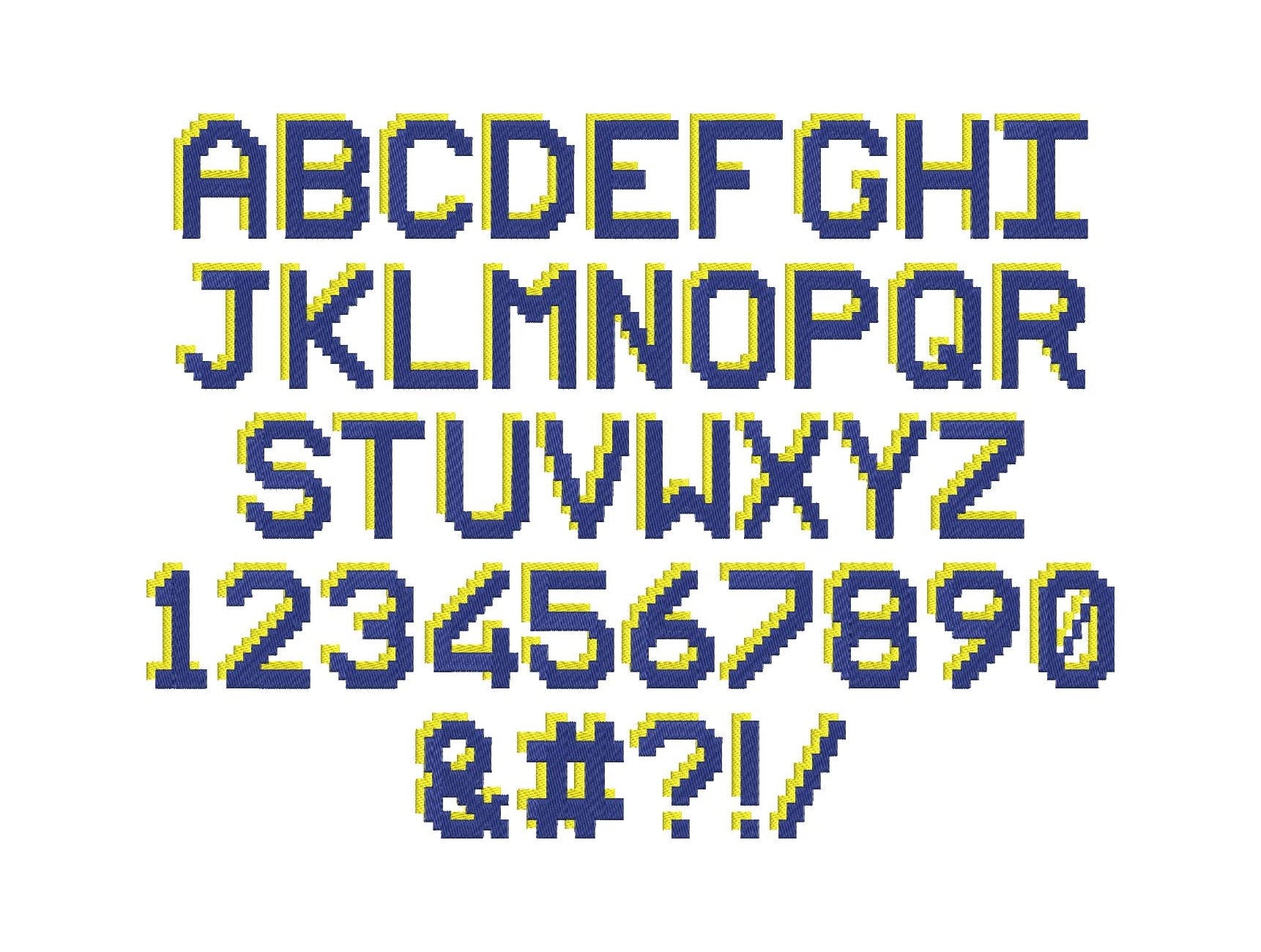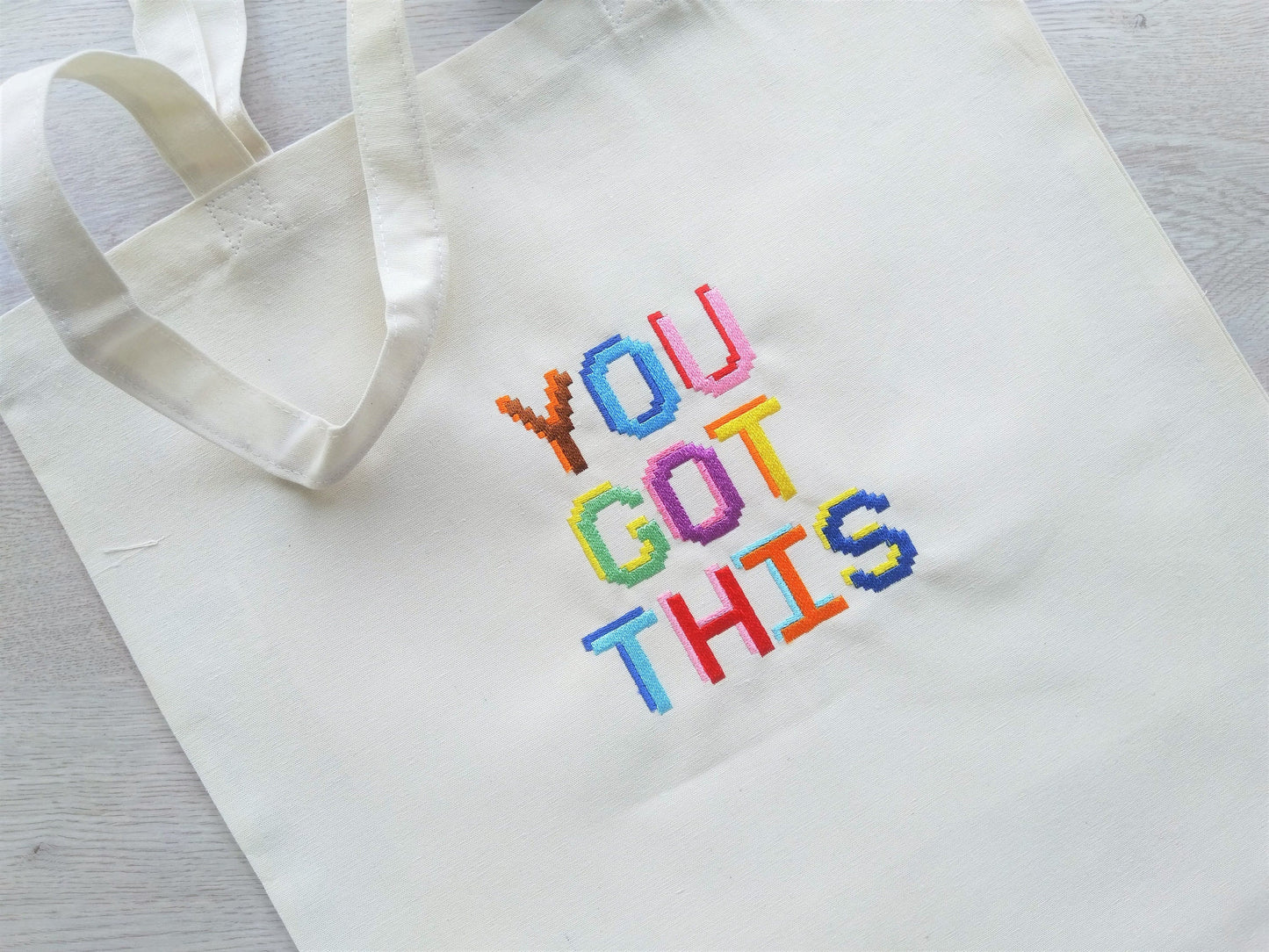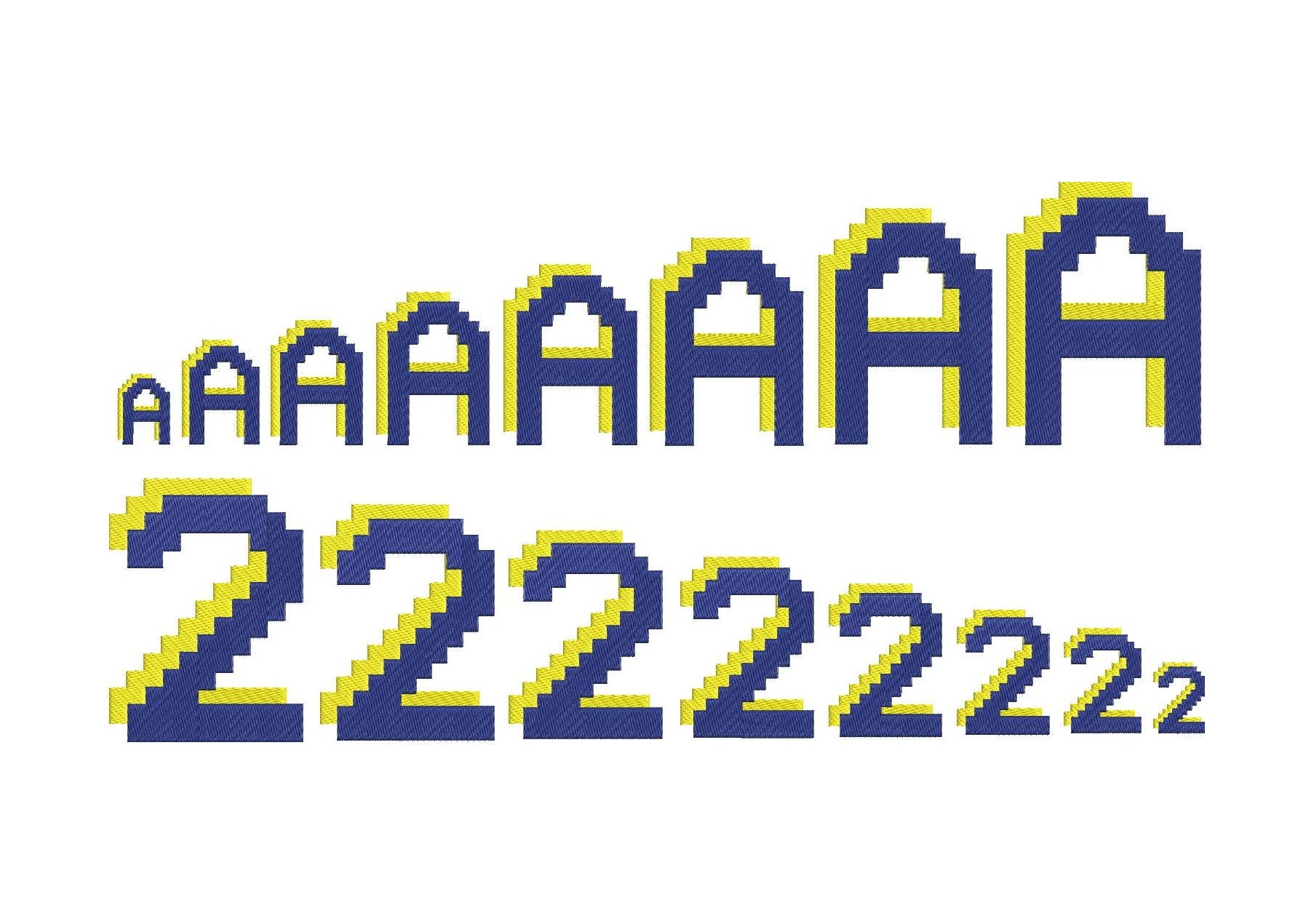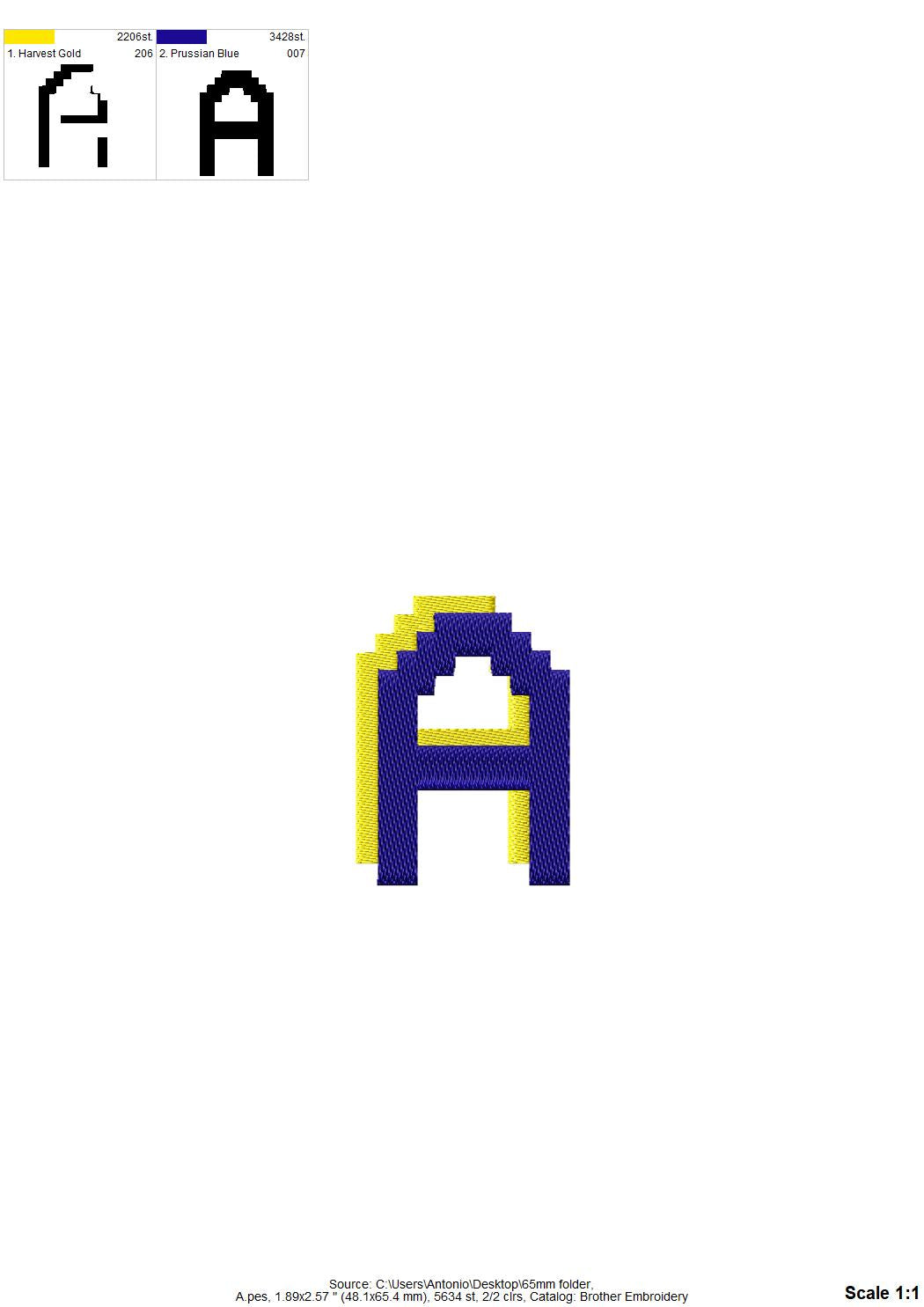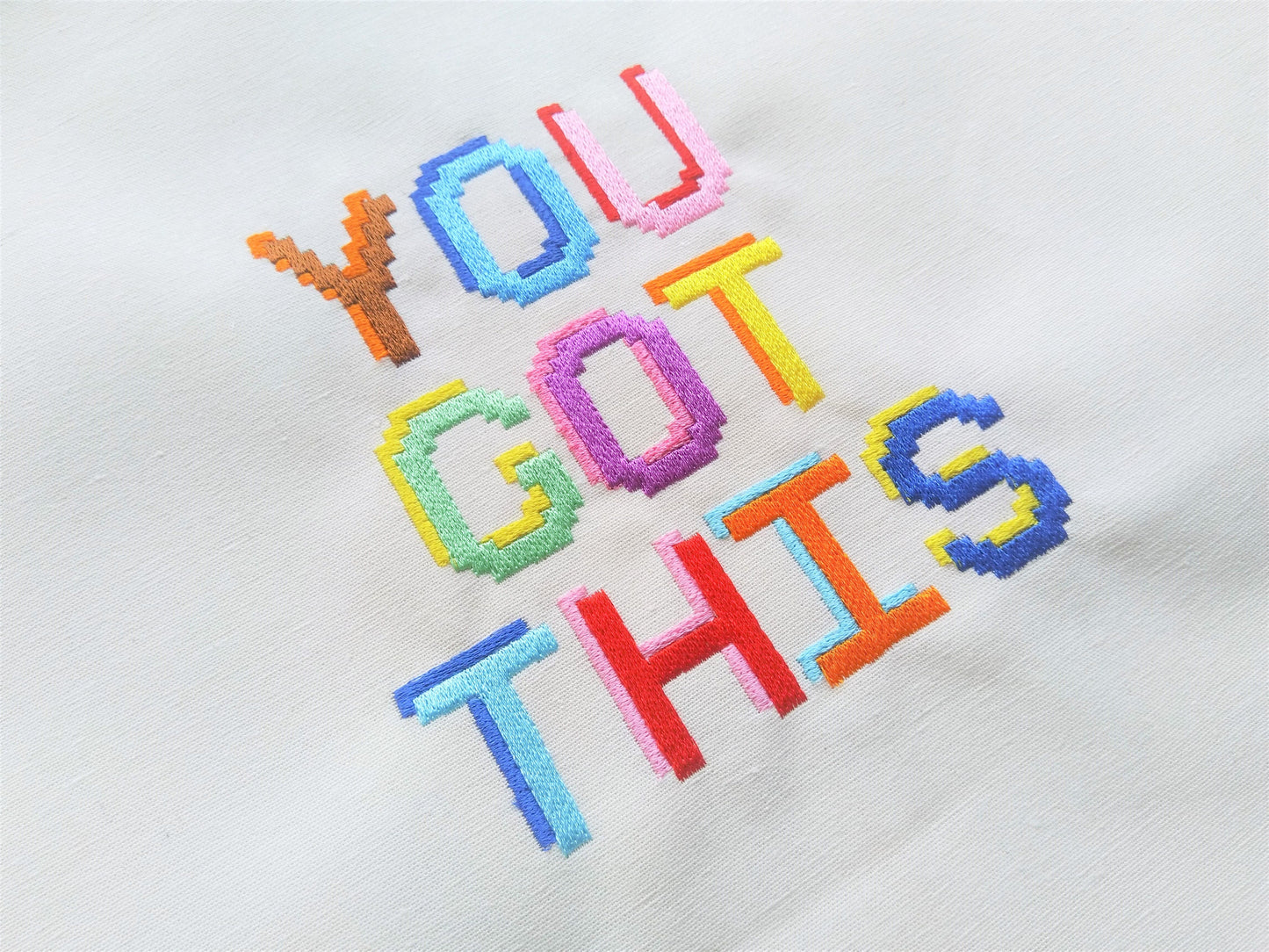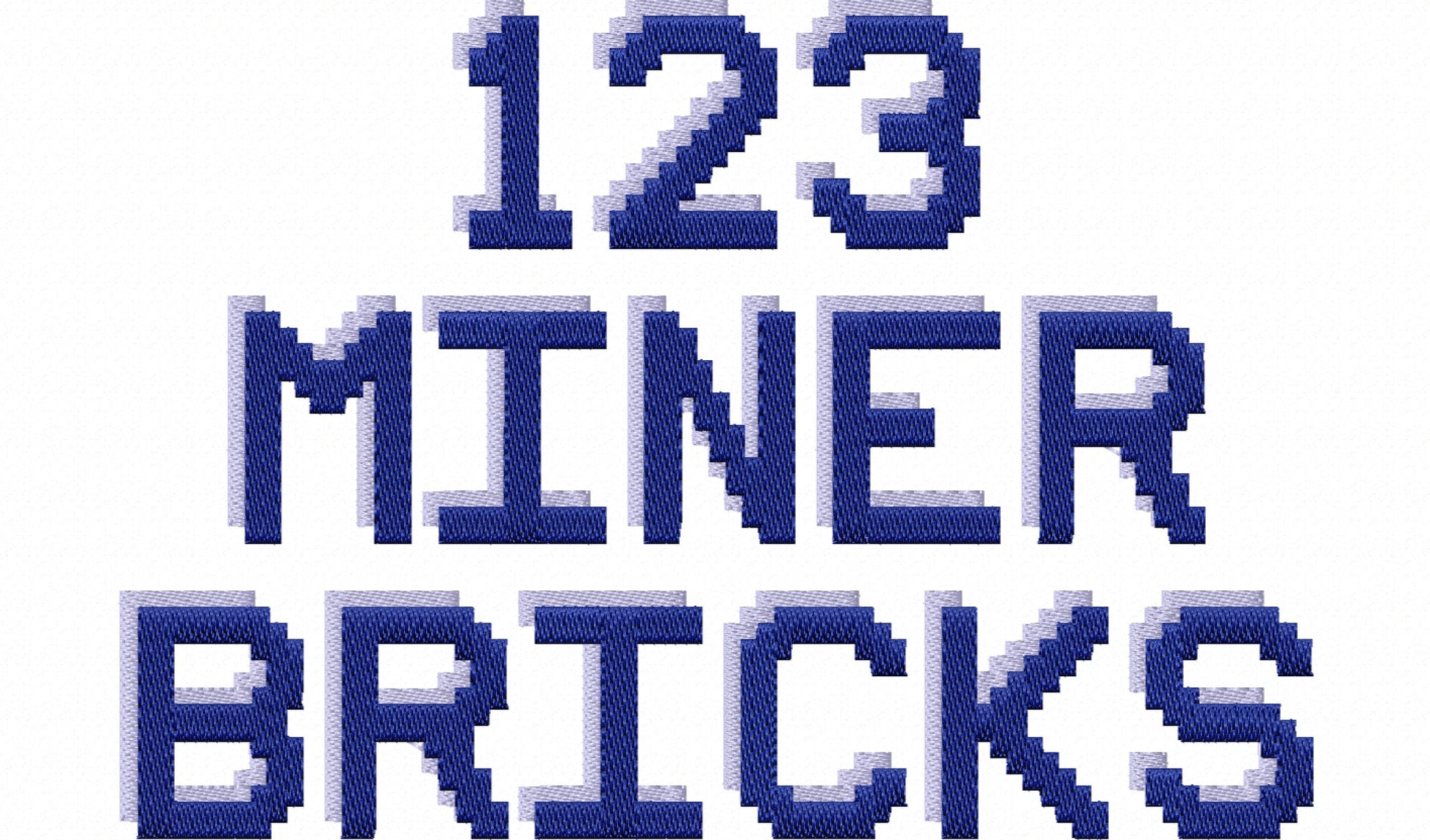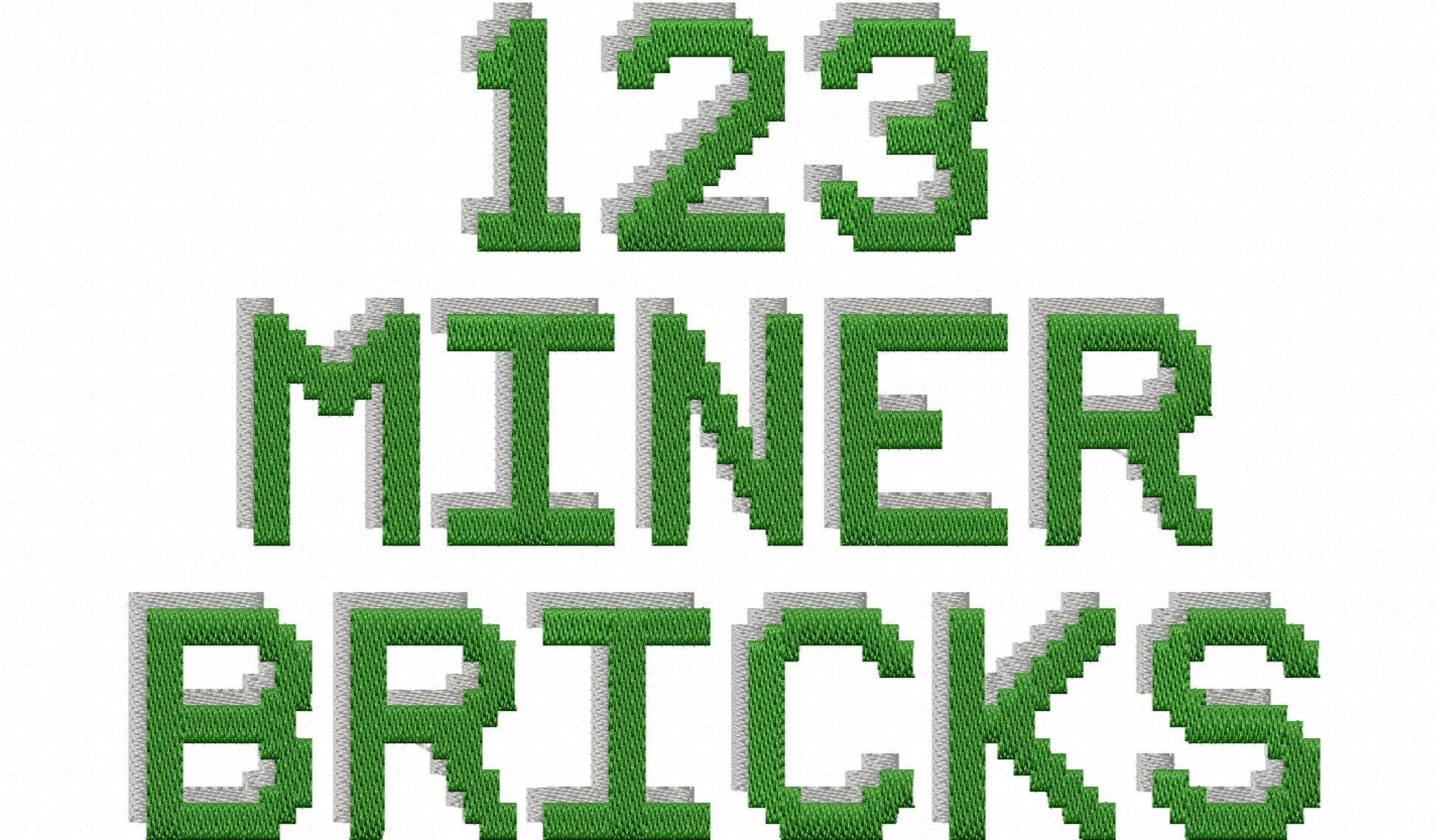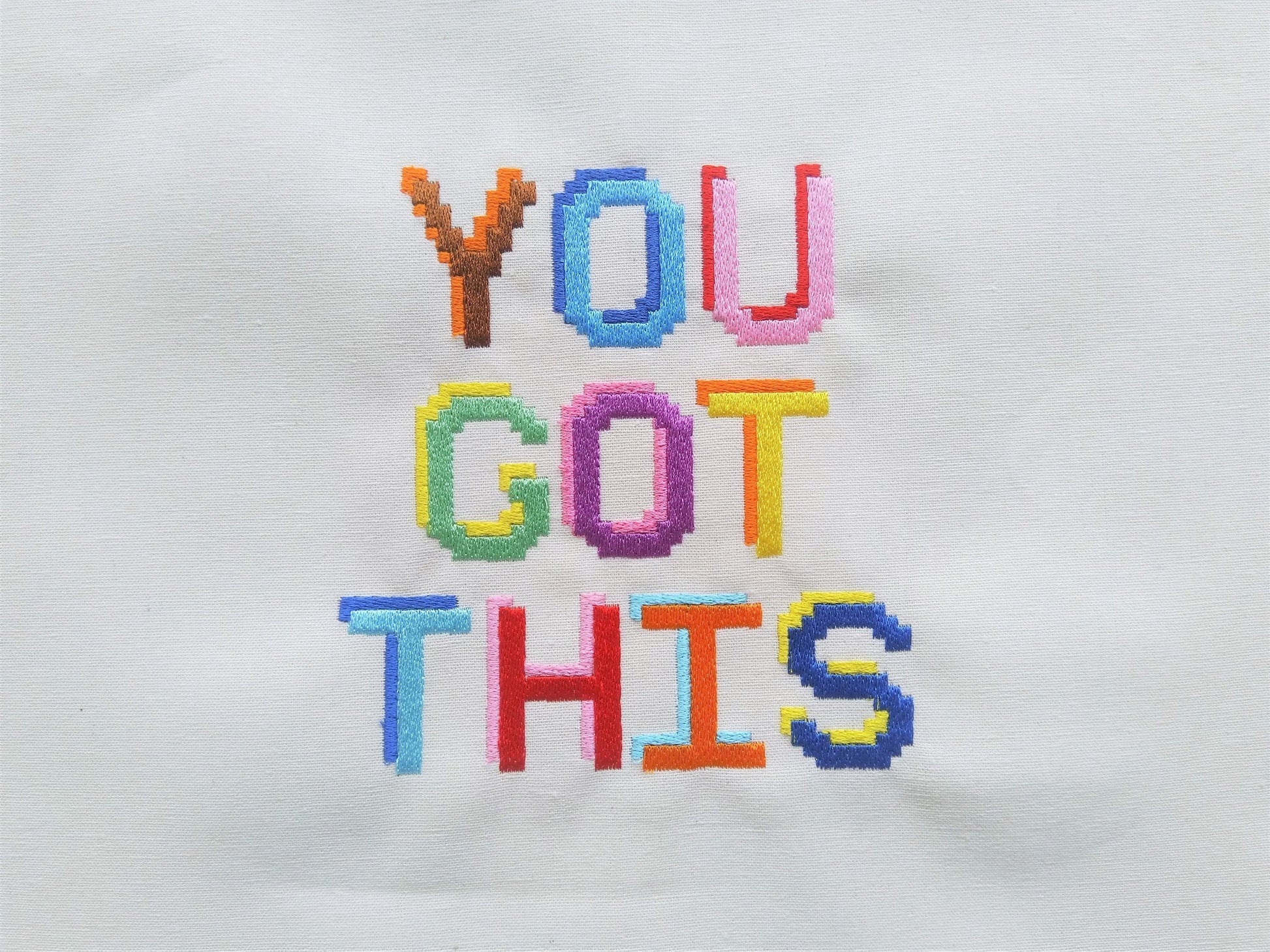
The font came out perfect for my backpack
It ended up being okay.. but it took me a while to figure out the best tension setting. Overall I’m pleased with the final result. I would be less pleased if I was selling this item instead of gifting it .
It was an easy to use font. Stitched out very clean.
Great stitch out. Great different sizes
This font was absolutely perfect for my project and stitched beautifully!!!
Gut für Kinder die Minecraft lieben
Amazing design!!! So happy with how it came out!! Thank youuu so much!
Schöne Stickschrift. Hatte keinerlei Probleme. Tolles Ergebnis.
This font stitches out beautifully. Great for Minecraft lovers
Excited to stitch this out.
Looks great and stitched out with no problems
This font stitched out beautifully!
Great font looks really good! Stitched out nicely
It stitched out perfectly. I am so happy with her digitizing techniques.
Stitched out great. Can’t wait to use it again’
Exactly what I was looking for to complete a hooded towel. Artapli quality is the best!
Super. Lies sich gut sticken
Stitched out great! Perfect for a custom shirt.
Stitched out great. I really love the fact that is has the shadow- adds some depth to the font.
Mega schöne Schrift!! Hat gute geklappt
Exactly what I needed. Stitched perfectly!
So eine tolle Schrift. Ich hab einen Hoodie für meinen Enkel damit bestickt
Very happy. Stitched out beautifully.
Perfekt
Font stitched out great - I paired it with a creeper hooded towel and it is much loved!
Love it! Stitched out great
The stitch out was perfect for my grandson's backpack!
Alles bestens! Tolle Stickdatei, sehr gute Qualität!! Vom Download übers Sticken hat alles super geklappt!! Kann ich nur empfehlen!!
This was a nice design, wait to you see a pic of it.
Brilliant and just what I needed! Stitches out perfectly!
great stitch out design thank you
Tolle Stickdatei - ich bin begeistert.